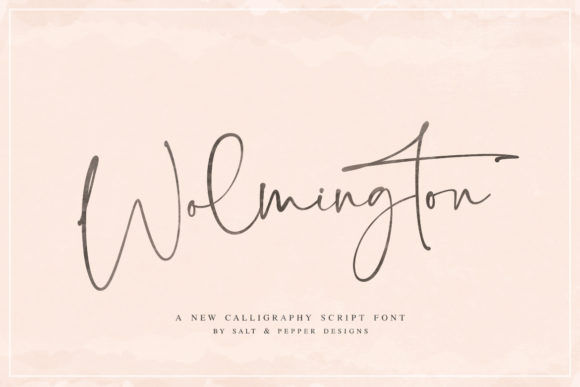
Feast your eyes on Wolmington Font, a magnificent creation by Salt and Pepper Fonts. This extraordinary script font has captured the essence of handwritten elegance, offering a captivating fusion of grace and charm. Wolmington's captivating strokes will ignite your creativity and transport your designs to a realm of sophistication.
Immerse yourself in the versatility of Wolmington. With its inherent beauty, it effortlessly enhances a myriad of design concepts. From the heartwarming allure of wedding invitations to the heartfelt sincerity of thank-you cards, Wolmington seamlessly elevates your expressions. Its graceful presence lends an air of sophistication to logos, greeting cards, and countless other creations, leaving an unforgettable impression on all who encounter it.
Indulge in the allure of Wolmington's PUA-encoded brilliance. Unleash the full potential of its glyphs and swashes with effortless ease, unlocking a world of limitless possibilities. Let your imagination run wild as you weave enchanting words and phrases, knowing that Wolmington will flawlessly translate your vision into a captivating reality.
Wolmington's inherent charm lies in its ability to transform ordinary designs into extraordinary masterpieces. Its meticulously crafted curves and flourishes evoke a sense of timeless elegance, while its delicate strokes possess an undeniable allure. Whether you seek to convey a message of love, gratitude, or simply the joy of living, Wolmington's essence will effortlessly elevate your creations.
Embrace the allure of Wolmington today and embark on a creative journey like no other. Let its enchanting presence captivate your audience, leaving them spellbound by the sheer beauty of your designs. Experience the transformative power of Wolmington and witness the magic unfold as your creations blossom into breathtaking works of art.